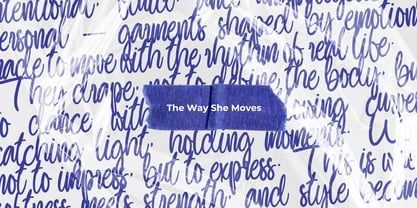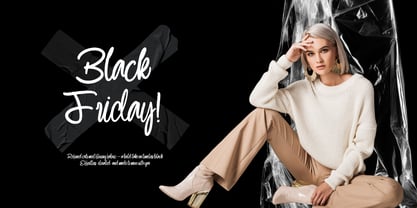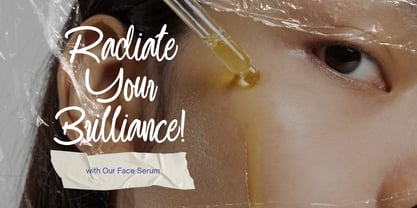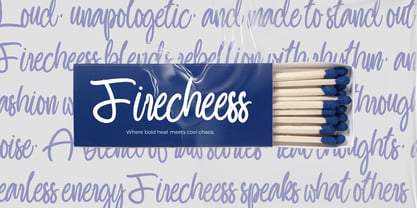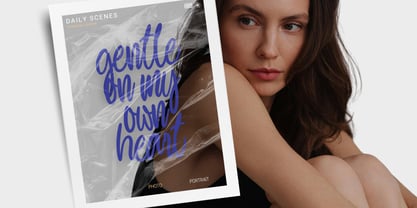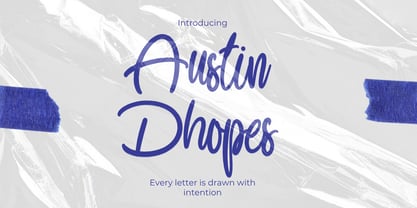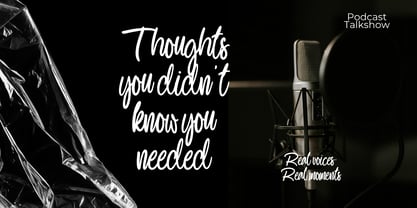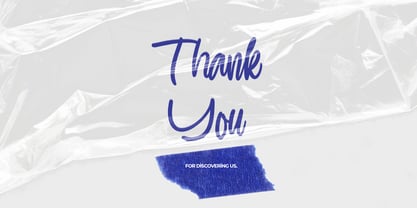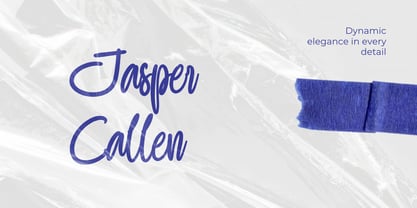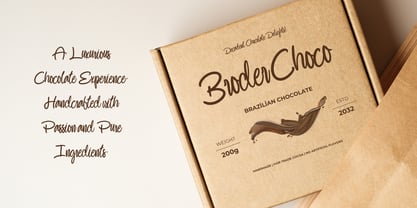
Austin Dhopes
by Gatype
The Austin Dhopes Font Family was designed by khaidir and published by Gatype. Austin Dhopes contains 1 styles. More about this family
Austin Dhopes – Modern Handcrafted Script Font
Austin Dhopes is a stylish script typeface that blends casual elegance with artistic flair. With its smooth curves, natural flow, and expressive character, Austin Dhopes adds a handcrafted touch to your creative work — perfect for branding, social media, packaging, and editorial headlines.
Designed to feel personal yet polished, each letter is thoughtfully shaped to bring authenticity and charm. Whether you’re crafting a fashion label, lifestyle quote, or modern invitation, Austin Dhopes brings energy and personality to every word.
✍️ Confidently crafted, effortlessly expressive — that’s the Austin Dhopes signature.